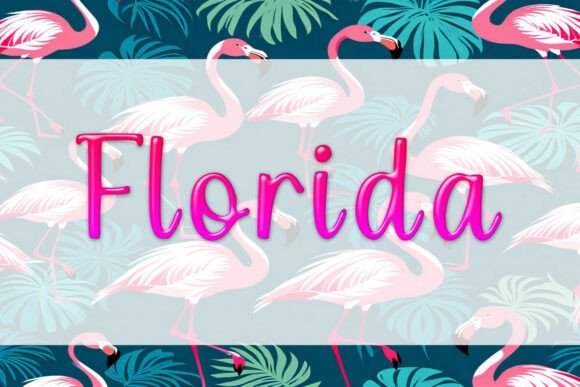
Discover the Ultimate Versatility of Florida Font
Are you a designer, crafter, or DIY enthusiast looking for a typeface that can elevate your creative projects? Look no further than Florida Font, a dynamic and versatile font that can add a unique edge to various applications. From t-shirts and stickers to branding efforts, magazine layouts, and social media graphics, Florida Font is the perfect choice for those seeking a distinctive and captivating visual appeal.
Unleash Your Creativity with Florida Font
Florida Font is designed to be adaptable and user-friendly, making it an excellent addition to your creative arsenal. Its intrinsic design adds a touch of personality to any project, whether you’re working on:
- T-shirts and Stickers: Add a pop of personality to your apparel and accessories with Florida Font’s unique style.
- Branding Efforts: Establish a strong brand identity with a font that stands out from the crowd.
- Magazine Layouts: Elevate your publication’s design with Florida Font’s distinctive edge.
- SVG Files and Cricut Projects: Enjoy limitless possibilities with Florida Font’s compatibility with SVG files and Cricut projects.
Endless Possibilities for Crafters and Designers
Florida Font is not just a typeface – it’s a creative tool that can help you bring your ideas to life. Whether you’re a seasoned designer or a crafty DIY enthusiast, Florida Font offers:
- Greeting Cards: Add a dynamic touch to your cards and make them stand out.
- Posters: Create eye-catching posters that grab attention with Florida Font’s bold style.
- Social Media Graphics: Elevate your social media presence with distinctive and captivating visual appeal.
What Makes Florida Font Stand Out?
So, what sets Florida Font apart from other typefaces? Here are just a few reasons why designers and crafters love Florida Font:
- Versatility: Florida Font can be used in a wide range of applications, from digital projects to print materials.
- Unique Style: Florida Font’s intrinsic design adds a touch of personality to any project.
- Compatibility: Florida Font is compatible with SVG files and Cricut projects, making it perfect for crafters and designers.
Tips for Getting the Most Out of Florida Font
To unlock the full potential of Florida Font, try these expert tips:
- Experiment with Colors: Florida Font looks great in bold colors, so don’t be afraid to get creative with your color palette.
- Mix and Match: Combine Florida Font with other typefaces or graphics to create unique and eye-catching designs.
- Play with Sizes: Florida Font looks great in large and small sizes, so experiment with different font sizes to add visual interest.
Florida Font is a game-changer for designers, crafters, and DIY enthusiasts. Its versatility, unique style, and compatibility with various applications make it an excellent addition to your creative toolkit. Whether you’re looking to elevate your branding efforts, add a dynamic touch to your greeting cards, or create eye-catching social media graphics, Florida Font is the perfect choice. So why wait? Discover the ultimate versatility of Florida Font and take your creative projects to the next level!